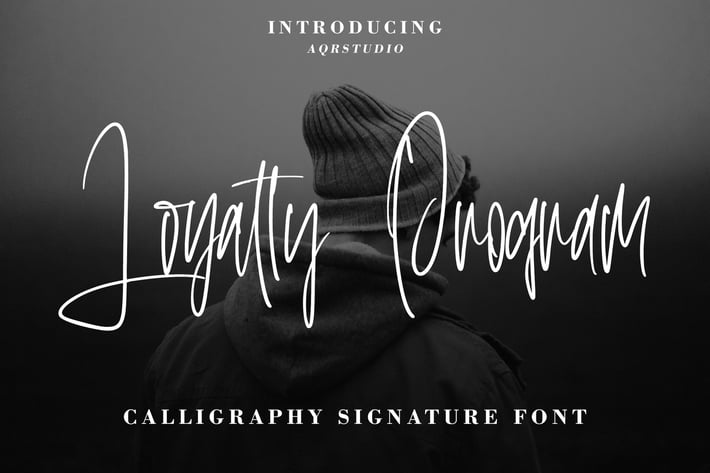
LoyaltyProgram - Calligraphy Signature Font
LoyaltyProgram - Calligraphy Signature Font contains a lowercase, uppercase, symbol, and also supports multi-language. There’s a lot of ligature in this font. LoyaltyProgram - Calligraphy Signature Font also comes with ligatures, stylistic alternates and many more.
this font suitable for fashion, branding, catalog and other design that you want.